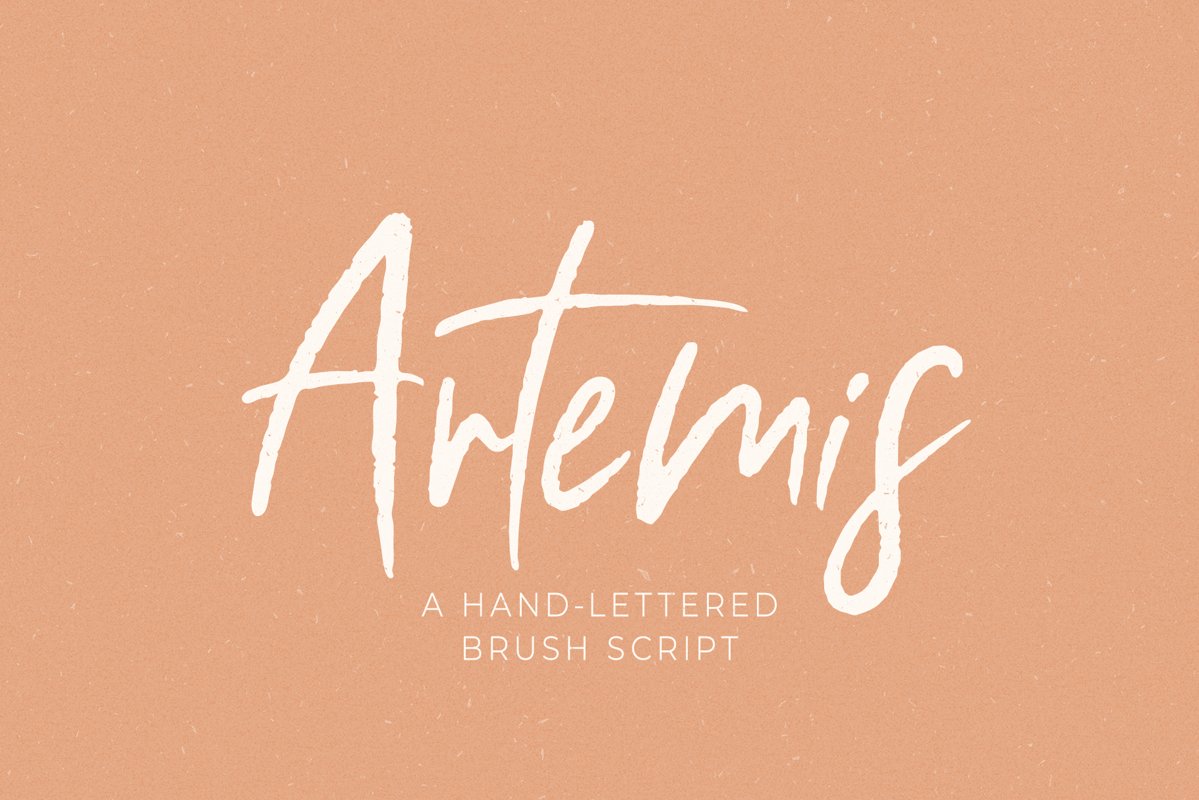
Artemis // A Hand-Lettered Brush Script
Artemis
Artemis is a chic, hand-lettered brush script font. Perfect for all sorts of projects such as social media posts, blogs, logo designs, branding, web design, packaging, and so much more!
• Upper and lowercase letters
• Numbers and punctuation
• Accented characters for the international designer
• Over 60 ligatures
• A couple alternative letters (with more on the way!)